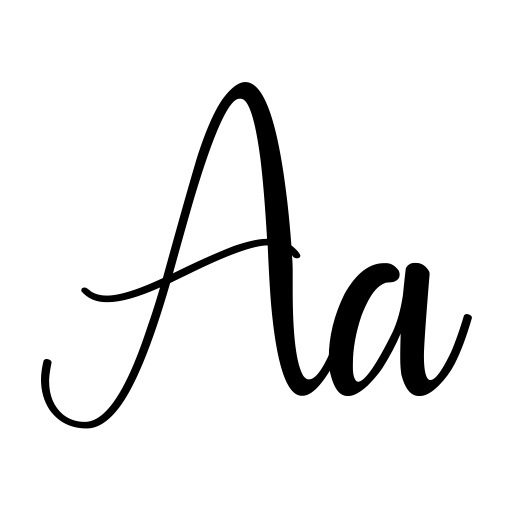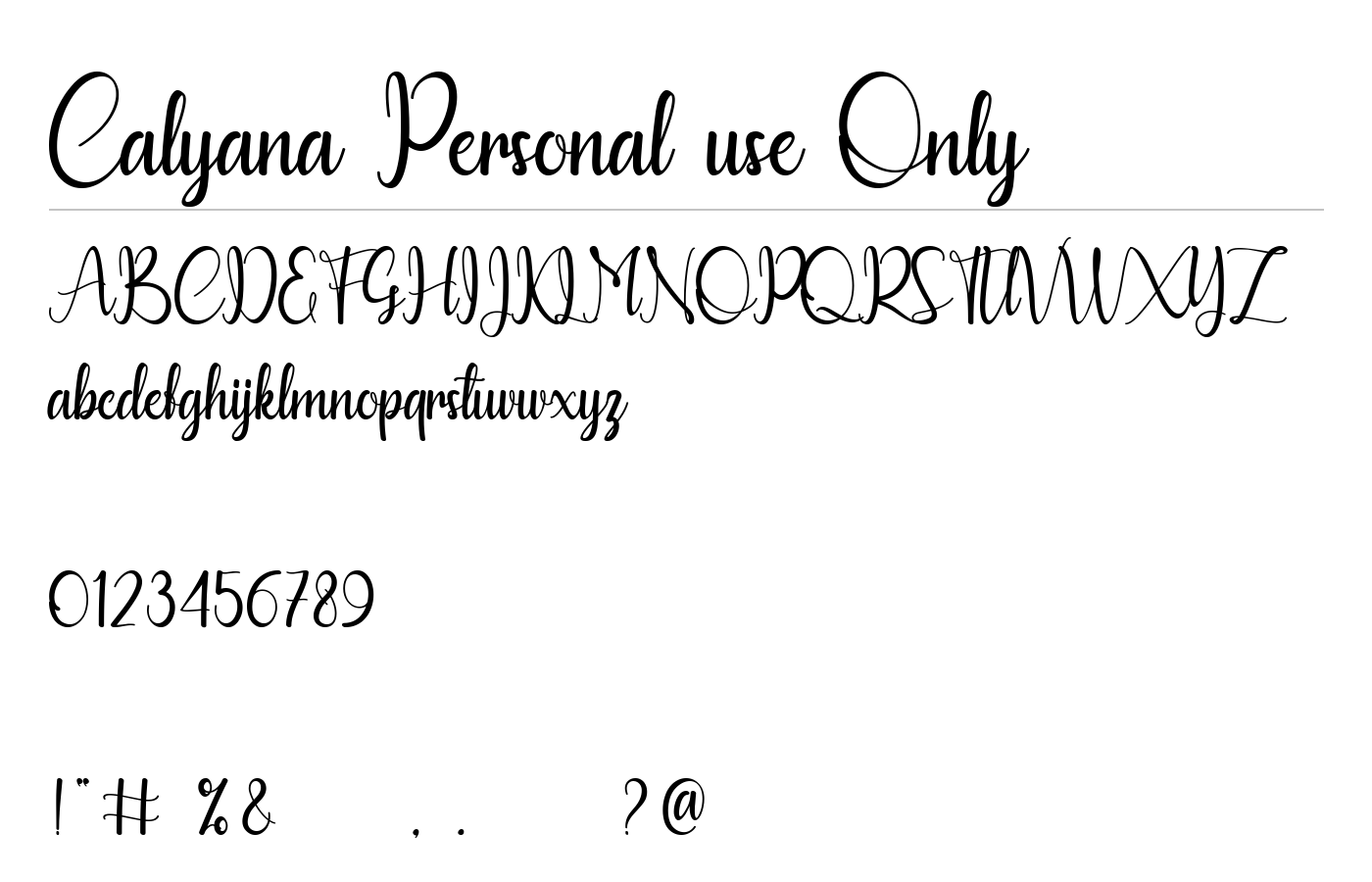
Calyana Personal Use Only is an elegant script font featuring a delicate and flowing style with high contrast between its thick and thin strokes. Its tall, slender letterforms with unique swashes and loops give it a sophisticated, hand-lettered feel, perfect for adding a personal, artistic touch. This font works beautifully for invitations, branding, and decorative headlines where a refined yet approachable aesthetic is desired.
Calyana Personal use Only Font
About Calyana Personal use Only Font